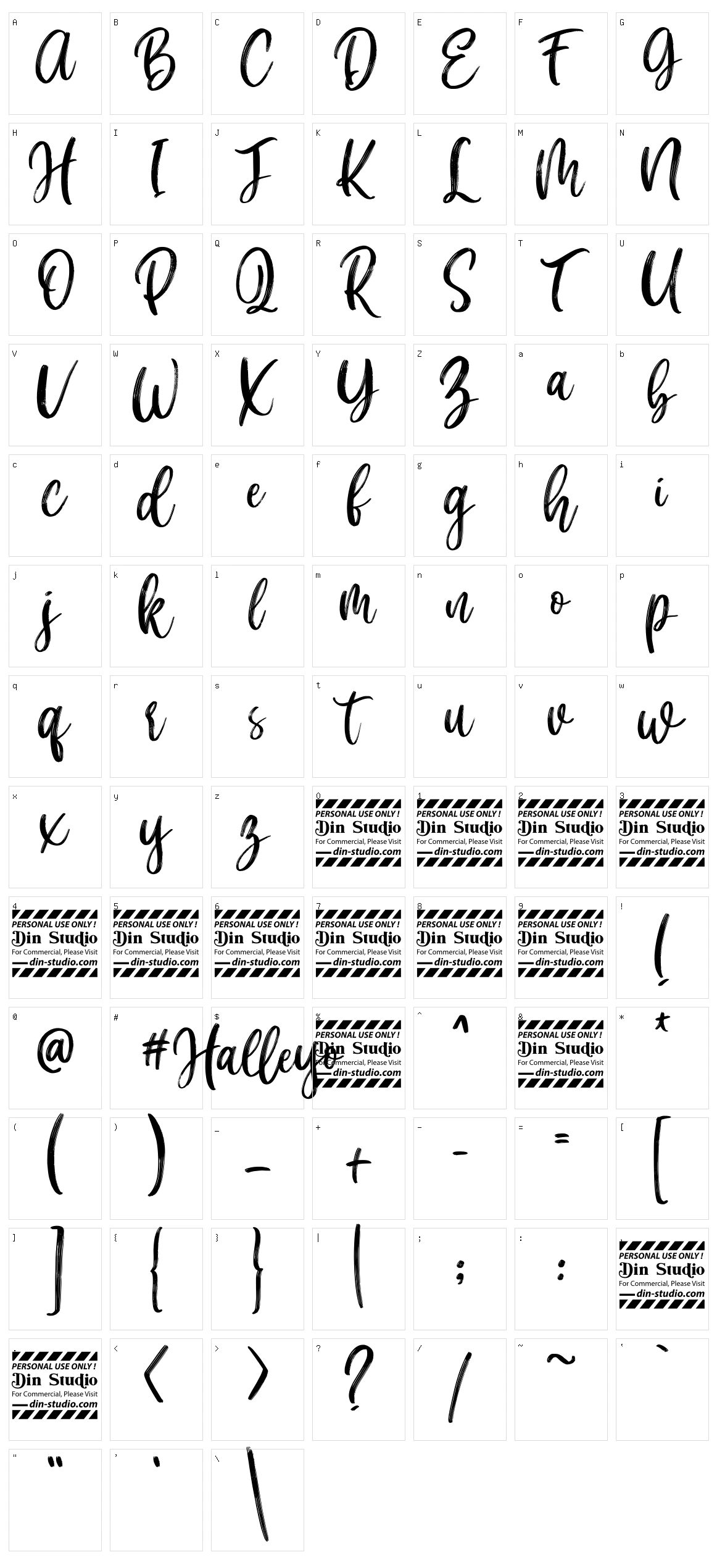
The free font Halleyo is carefully designed by Din Studio, showcasing a thoughtful balance of creativity and usability and falls under the Script font style. When you download the ZIP file, it contains only 475.34 KB of font files, making it lightweight and quick to download. Please review the license details below to understand permitted usage and distribution rights. If license information is not available, we recommend using this font for personal projects only or contacting the author directly for commercial usage permissions.